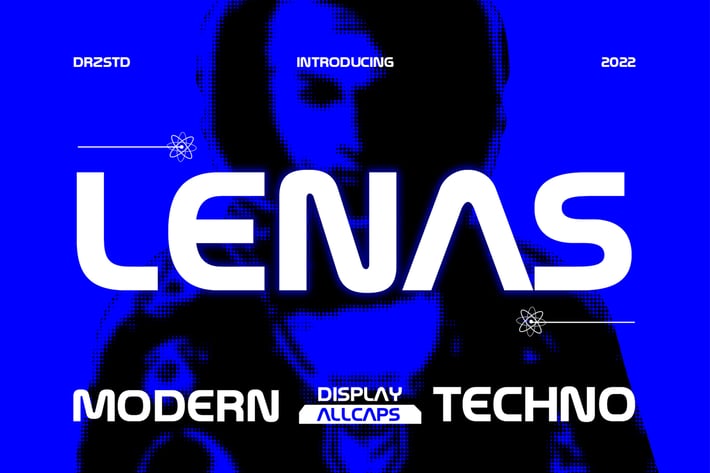
Lenas - Modern Techno Font
Lenas is a Modern Techno Display Font from Drizy studio. Offering all the basic styles you will need for a techno theme of your project.
Lenas Features:
Multilinguals & Alternates